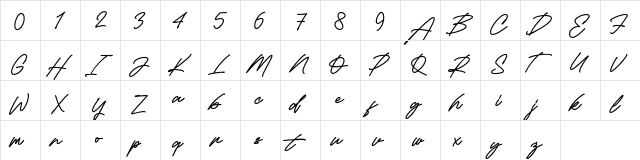
Vancouver FREE Regular
Design Context for Vancouver FREE Typeface
Vancouver FREE is a composed and adaptable typeface that performs quietly and consistently across a wide range of design contexts.
Pro Tip: Use Vancouver FREE in both headline and body roles to test its range before committing to a single application.